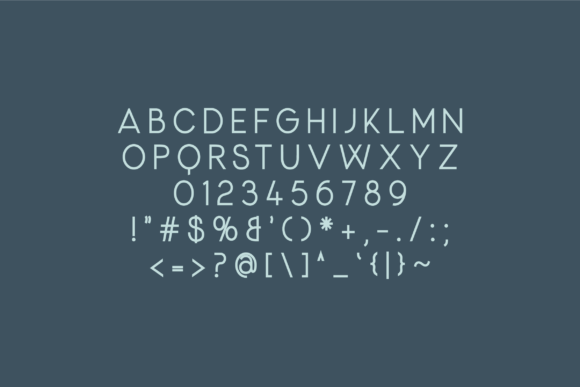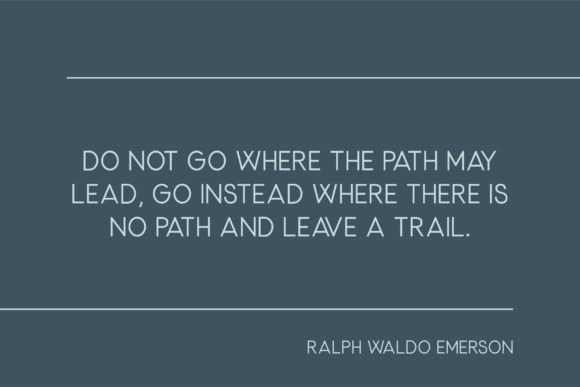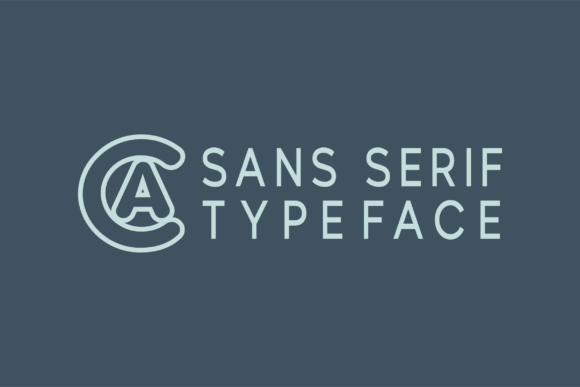
Introduction to Promakhos Font
Remember that moment when you finally find the perfect font to bring your creative project to life? The feeling of excitement and relief as you envision your design taking shape is indescribable. For designers, having access to high-quality fonts is essential to creating visually stunning and engaging work.
That’s where the Promakhos Font comes in – a contemporary, elegant sans serif typeface that offers a sleek metropolitan charm. This versatile font is a valuable design resource that can elevate your creative projects from ordinary to extraordinary. With its transparent background and crisp typography, Promakhos Font is perfect for designers seeking a reliable and high-quality font to add to their arsenal.
Promakhos Font
- High-quality design resource ideal for creative projects, with a transparent background for seamless integration.
- Includes a comprehensive set of glyphs, covering a wide range of languages, making it suitable for international projects.
- Designed with a clean and modern aesthetic, Promakhos Font is perfect for branding, logos, and other visual identity elements.
- Features a high-resolution design (up to 1024 dpi), ensuring crisp and clear text display on various devices and mediums.
- Supports OpenType features, allowing for advanced typographic control and customization.
Honest Review: Promakhos Font
As a designer, I’m always on the lookout for high-quality design resources that can elevate my creative projects. The Promakhos Font caught my eye with its sleek and modern design. In this review, I’ll share my honest thoughts on what works well and where it falls short.
- ✨ High-quality design: The Promakhos Font has a clean and sophisticated look that’s perfect for modern design projects.
- ✨ Transparent background: The font’s transparent background makes it easy to layer and combine with other design elements.
- ⚠️ Limited font sizes: While the font is great for body text, it may not be the best choice for large headings or titles.
- ⚠️ Limited language support: The font may not be suitable for languages that require complex typography or character sets.
Overall, I’m impressed with the Promakhos Font’s design and versatility. While it may have some limitations, it’s a great resource for designers working on modern, creative projects. I’d definitely recommend it for anyone looking for a high-quality, free font.
Tips for Getting the Most Out of Promakhos Font
Experiment with different font sizes, colors, and styles to create unique typography. Use the font’s transparent background to create layered designs. Also, consider pairing Promakhos Font with other design elements to create visually appealing compositions.
Common Use Cases for Promakhos Font
Promakhos Font is suitable for various design projects, including branding, marketing materials, and digital products. Use the font for headings, titles, or body text to create a cohesive design language. Its high quality and versatility make it an excellent choice for creative projects.